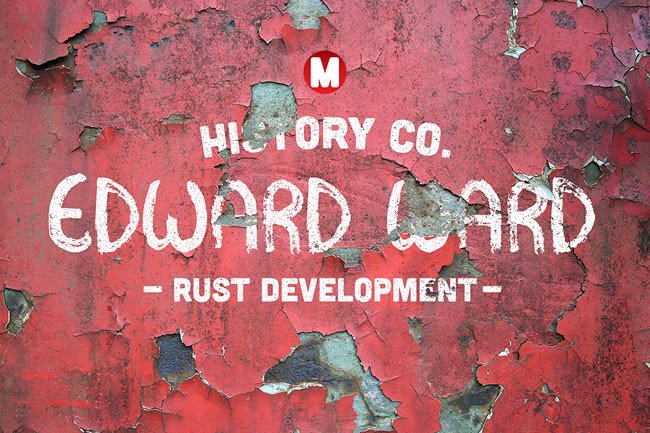
Edward Font
Download Edward Font for free! Created by Only The Originals and published by Benjamin Schultz, this display font family is perfect for adding a unique touch to your designs.
Introducing 'Edward', the extraordinary display font family that will ignite your creativity!
Immerse yourself in a world of captivating typefaces, meticulously crafted by Only The Originals. 'Edward' is not just a font; it's an artistic masterpiece waiting to adorn your designs with elegance and charm.
Whether you're conjuring enchanting invitations, heartfelt greeting cards, or eye-catching branding materials, 'Edward' will effortlessly elevate your creations. Its versatile nature dances across an array of design projects, transforming ordinary words into extraordinary visual wonders.
With 'Edward' at your fingertips, prepare to unleash your inner artist. Design business cards that command attention, quotes that resonate deeply, and posters that ignite imaginations. Its captivating characters will dance across your designs with grace and allure, captivating your audience with every stroke.
Dare to embrace the artistry of 'Edward' today. Let its enchanting forms inspire your designs and elevate your creations to new heights of brilliance. Embark on a journey of limitless creativity, where every letter becomes a stroke of genius.